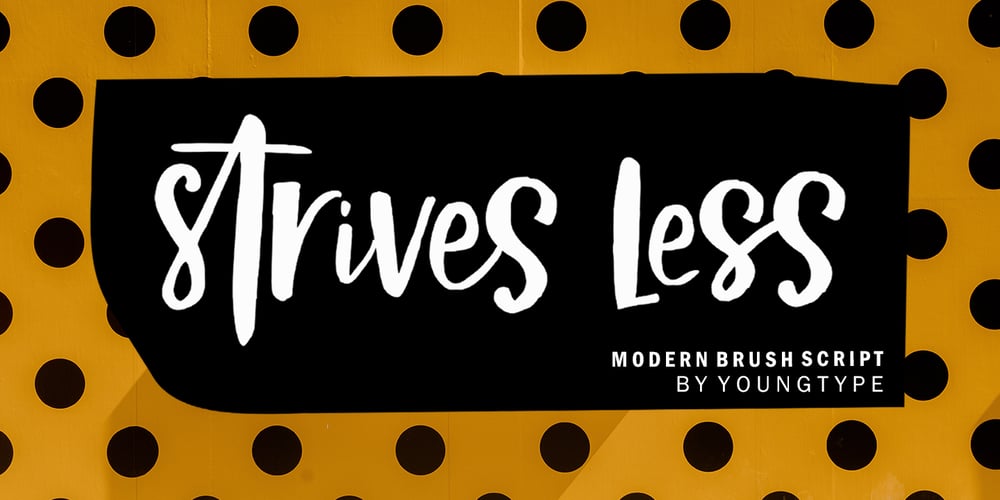
Strives Less
Strives Less font
Strives Less Font Family was designed by Naufal Paramata and published by Youngtype. Strives Less contains 1 styles and family package options. Strives Less script font is a made with brushes and ink. This typeface is ideal for use in thick watercolor designs or handwriting styles, such as blog titles, posters, wedding elements, t-shirts, clothing, book covers, business cards, greeting cards, branding, merchandising, and more.Contains a full set of : Uppercase Lowercase Alternates Punctuation Numbers Multi-lingual support How to access all alternative characters, using Windows Character Map with Photoshop: https://www.youtube.com/watch?v=Go9vacoYmBwHow to access all alternative characters using Adobe Illustrator: https://www.youtube.com/watch?v=XzwjMkbB-wQ